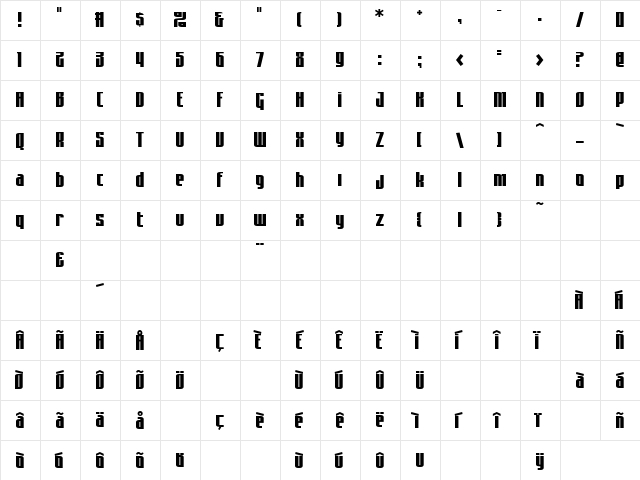
AsimovSans Regular
Design Context for AsimovSans Typeface
AsimovSans is a composed and adaptable typeface that performs quietly and consistently across a wide range of design contexts.
Pro Tip: Pair AsimovSans with a font of contrasting weight or personality to build a more expressive typographic hierarchy.